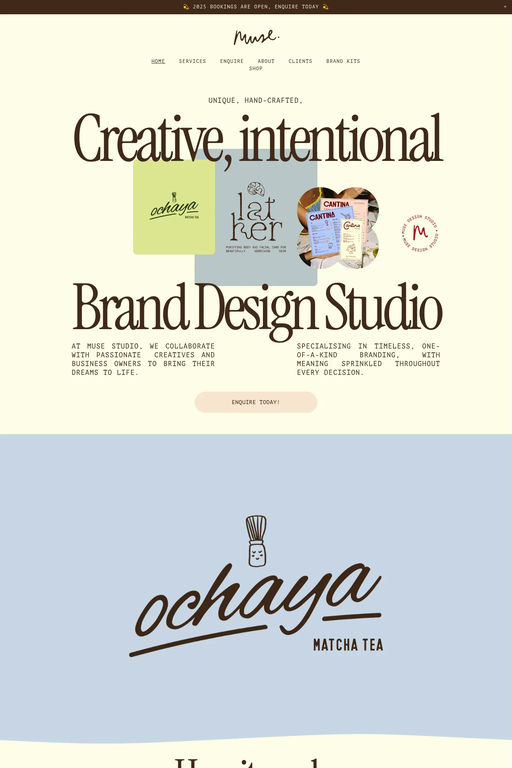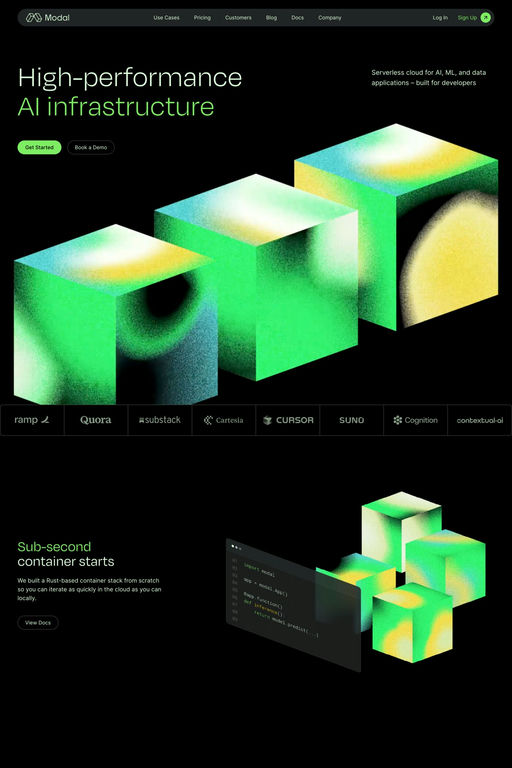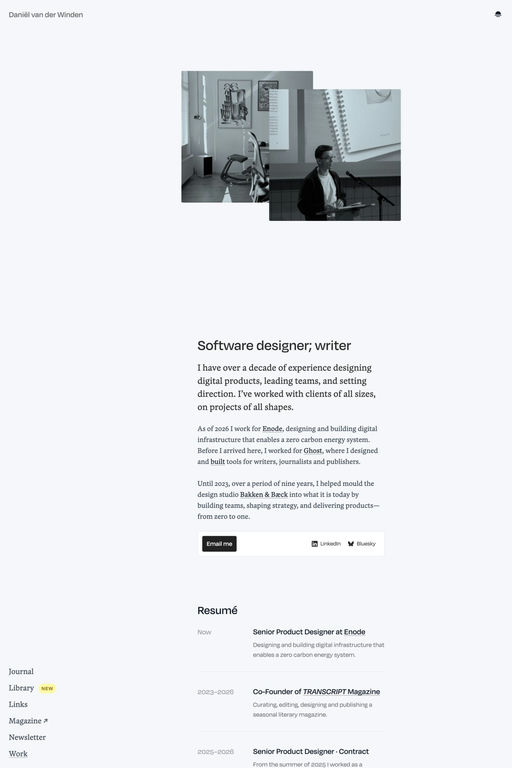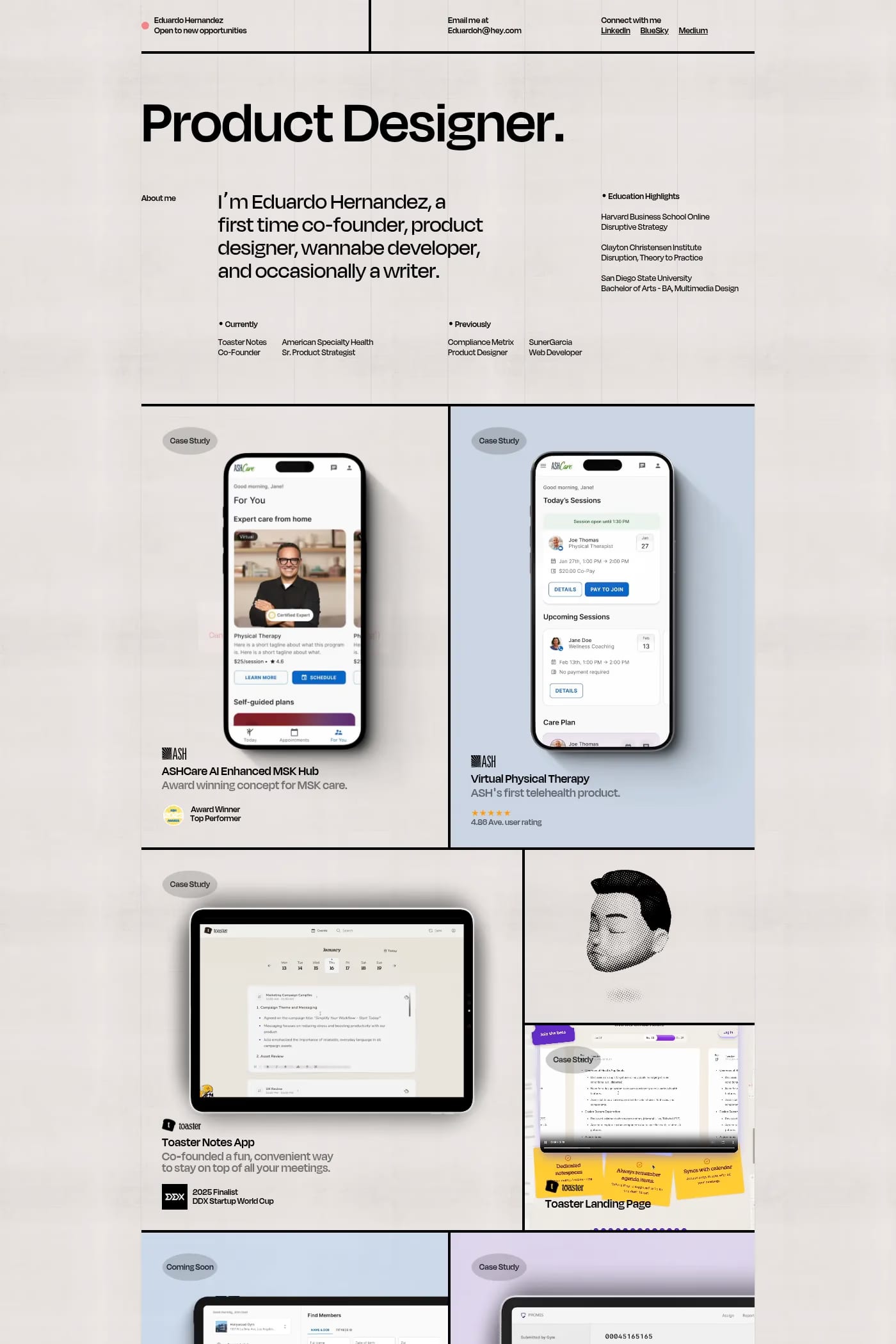
Degular is a sans-serif typeface from OH no Type Co.
Degular is a conventional typeface that subsidizes work on unconventional typefaces. The other bonus: it’s the first Ohno typeface you can use more than once!
A1 features 5 websites using Degular, including Eduardo Hernandez, Daniël van der Winden, and Muse Design Studio. They lean towards Lines, Shapes, and Sans-serif design styles, and they’re most often built with Squarespace, Next.js, and SvelteKit.